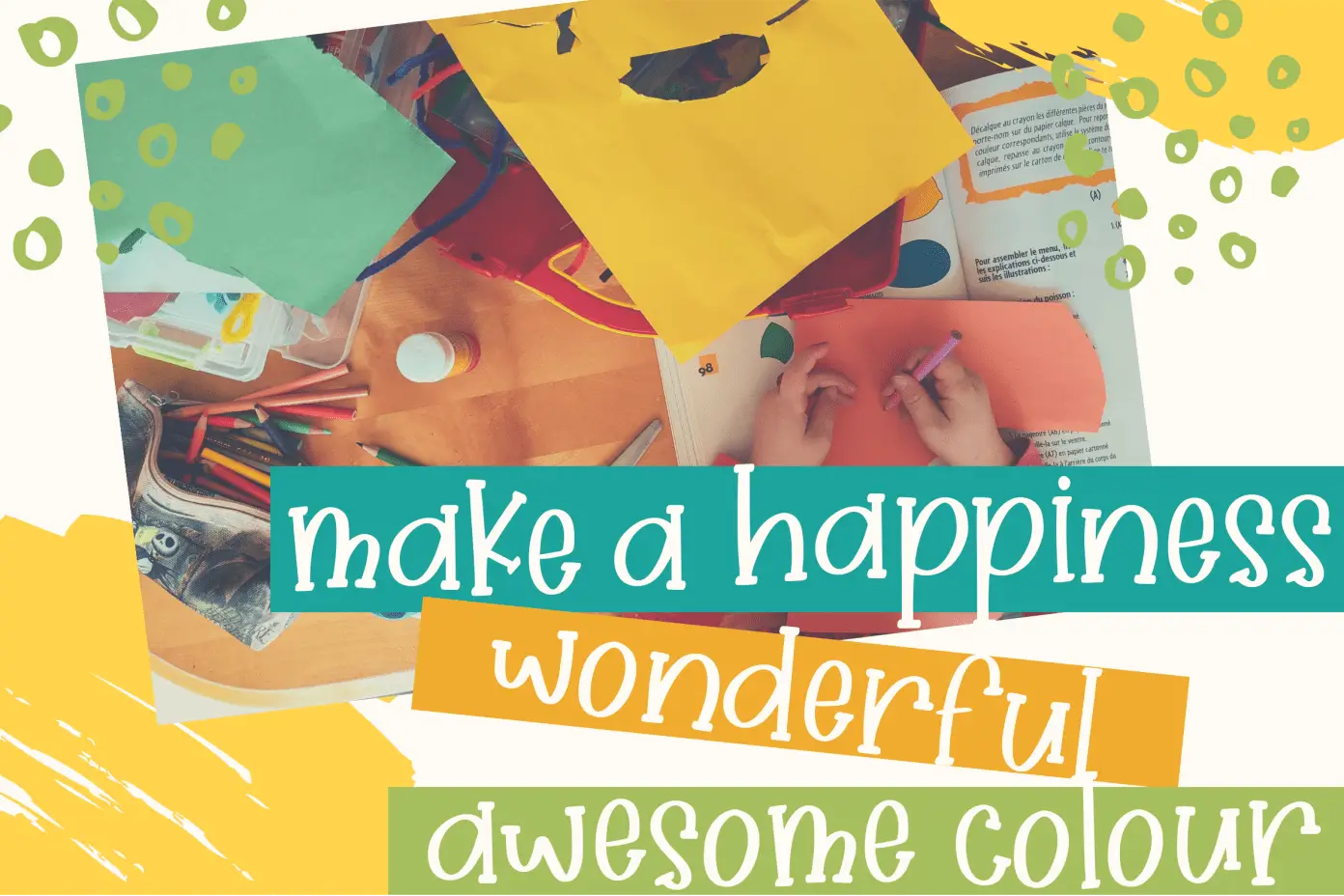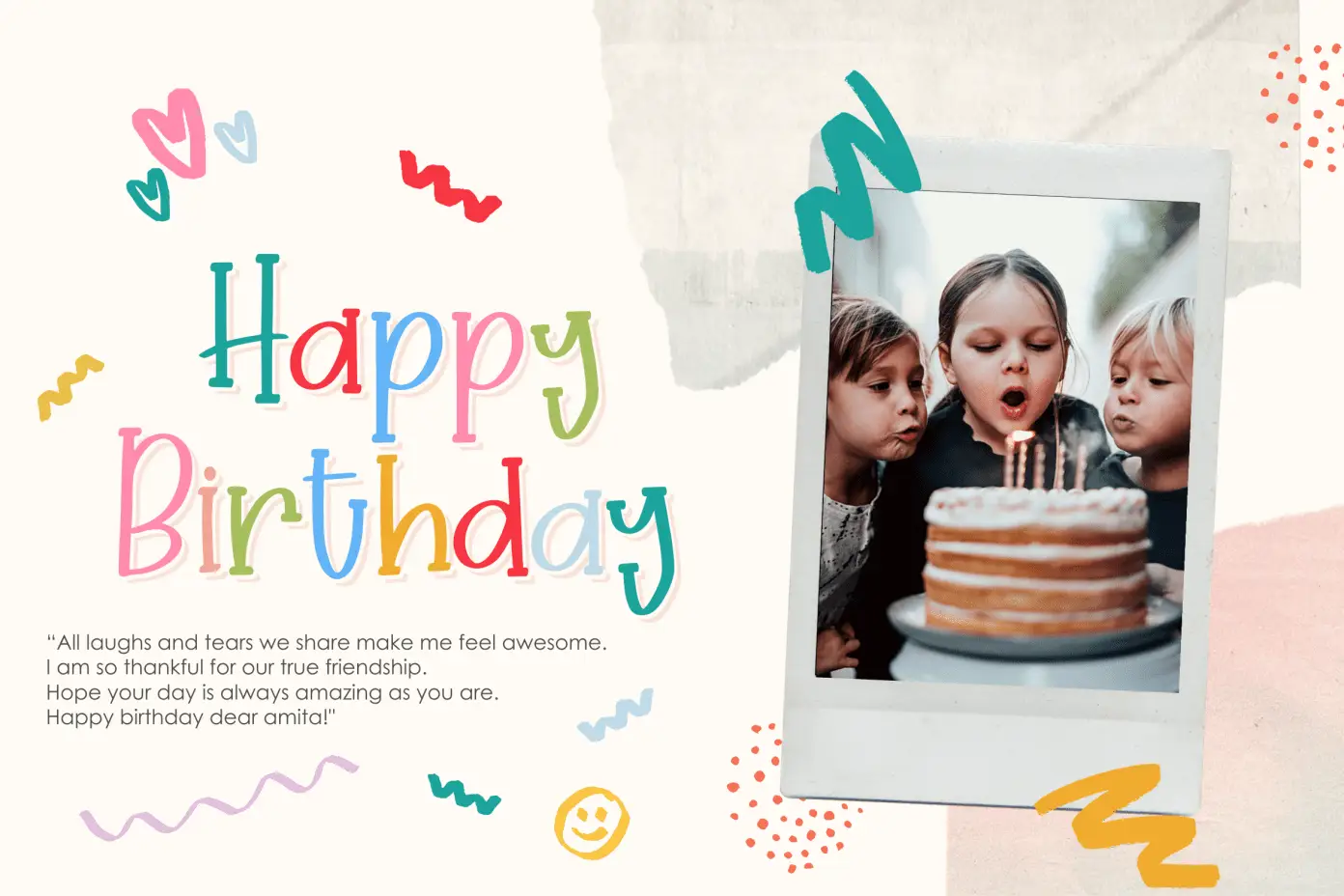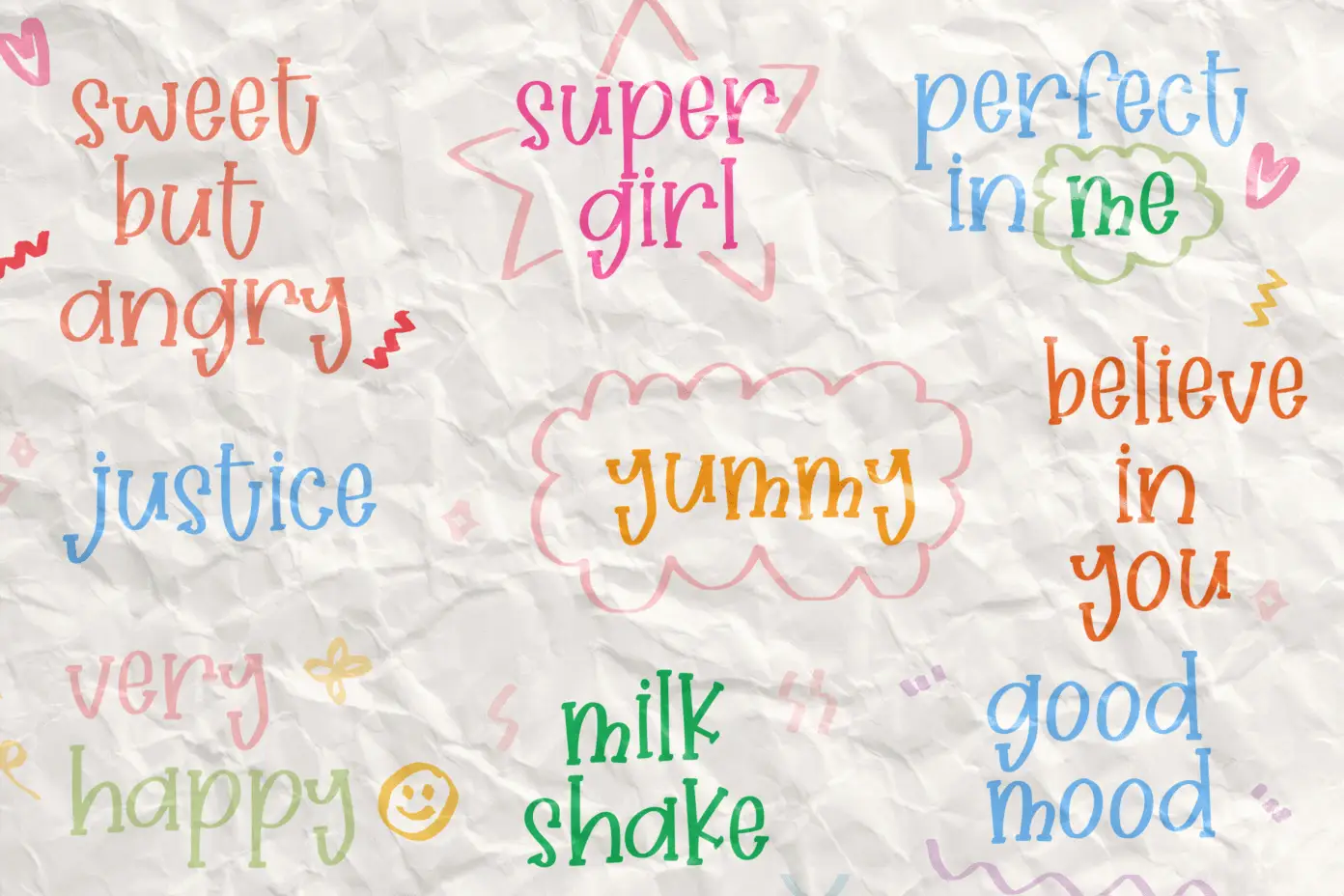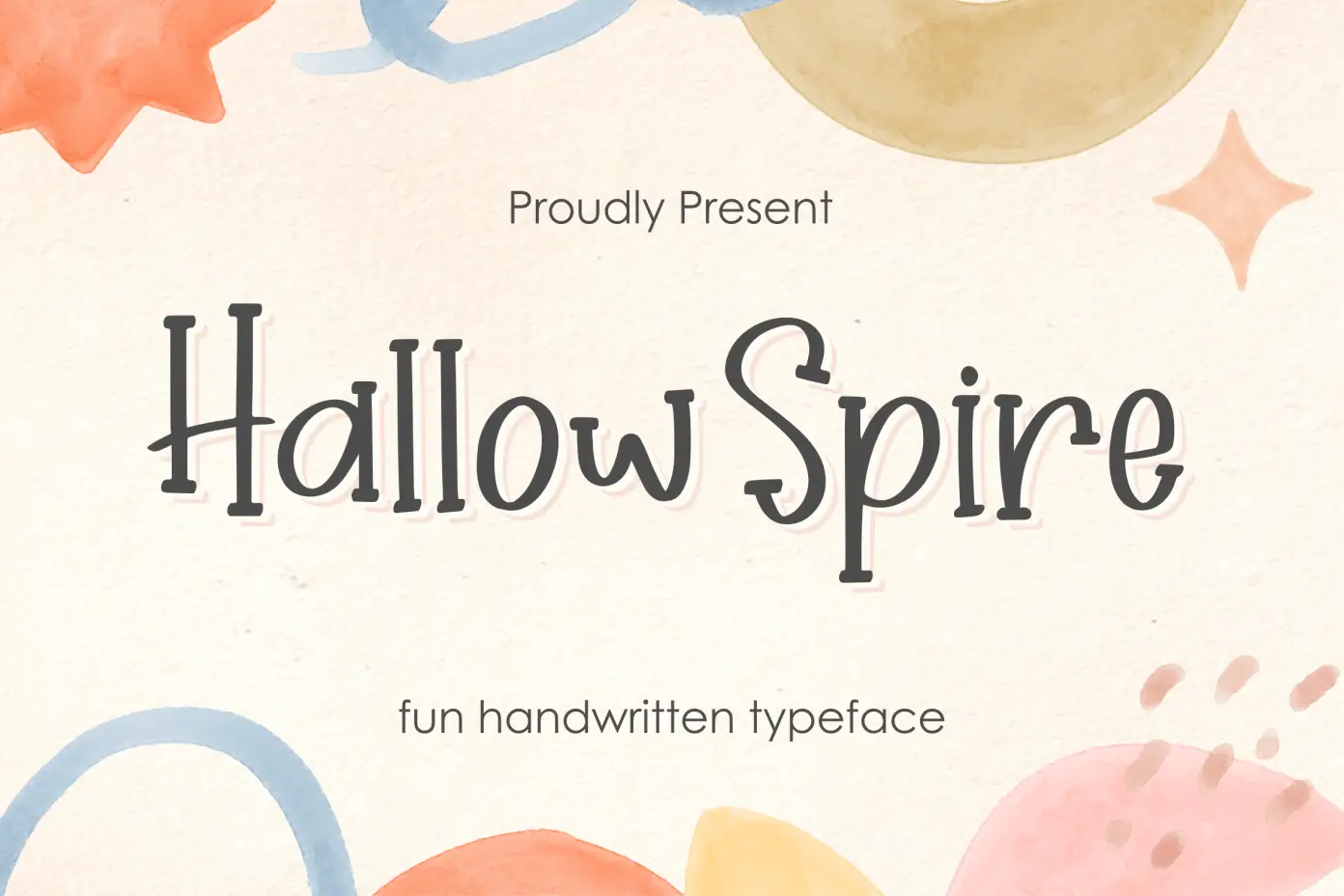
The Hallow Spire Display Font is a unique typeface designed to make a statement. With its bold and intricate letterforms, this font is perfect for eye-catching titles, logos, and branding projects. Its distinctive style adds a touch of elegance and creativity to any design.
- Available in multiple weights for versatility
- Includes uppercase and lowercase letters, numbers, and punctuation
- Designed for high readability at various sizes
- Style: Display
- Ideal for branding, posters, and promotional materials
- Use in web design for impactful headings
- Combine with complementary sans-serif fonts for a balanced look